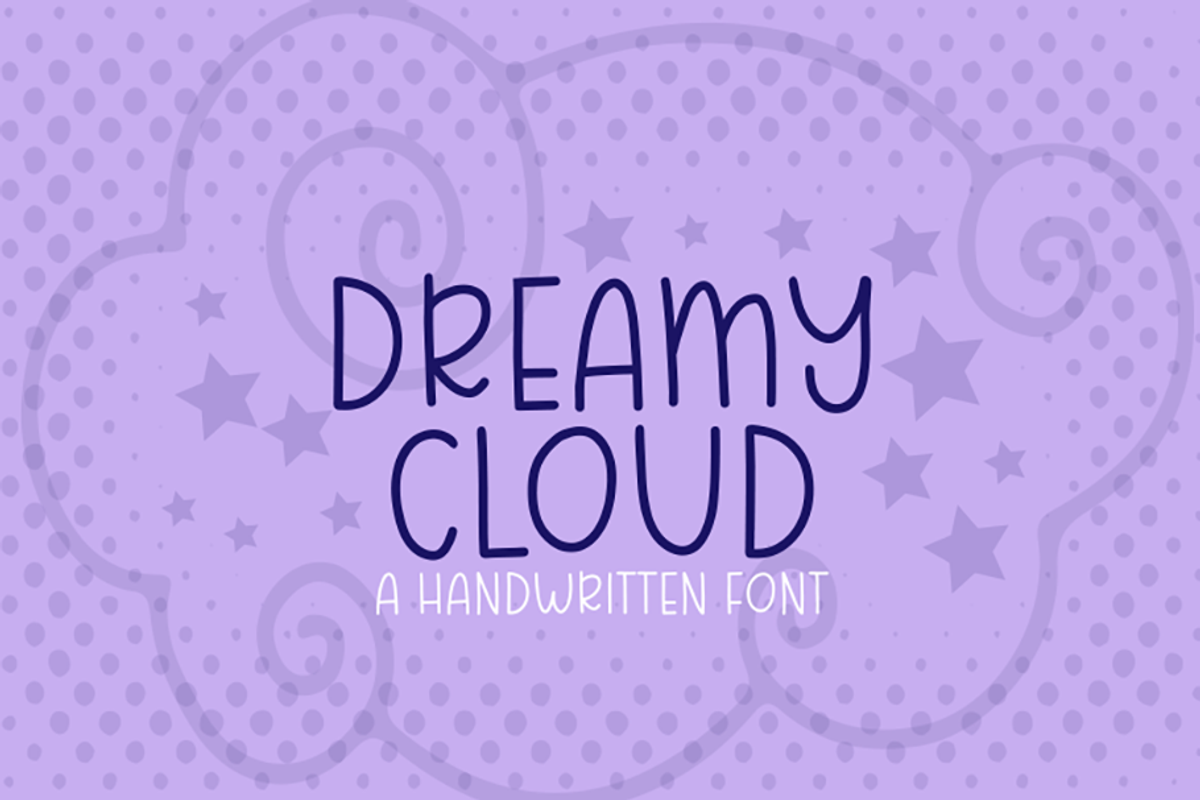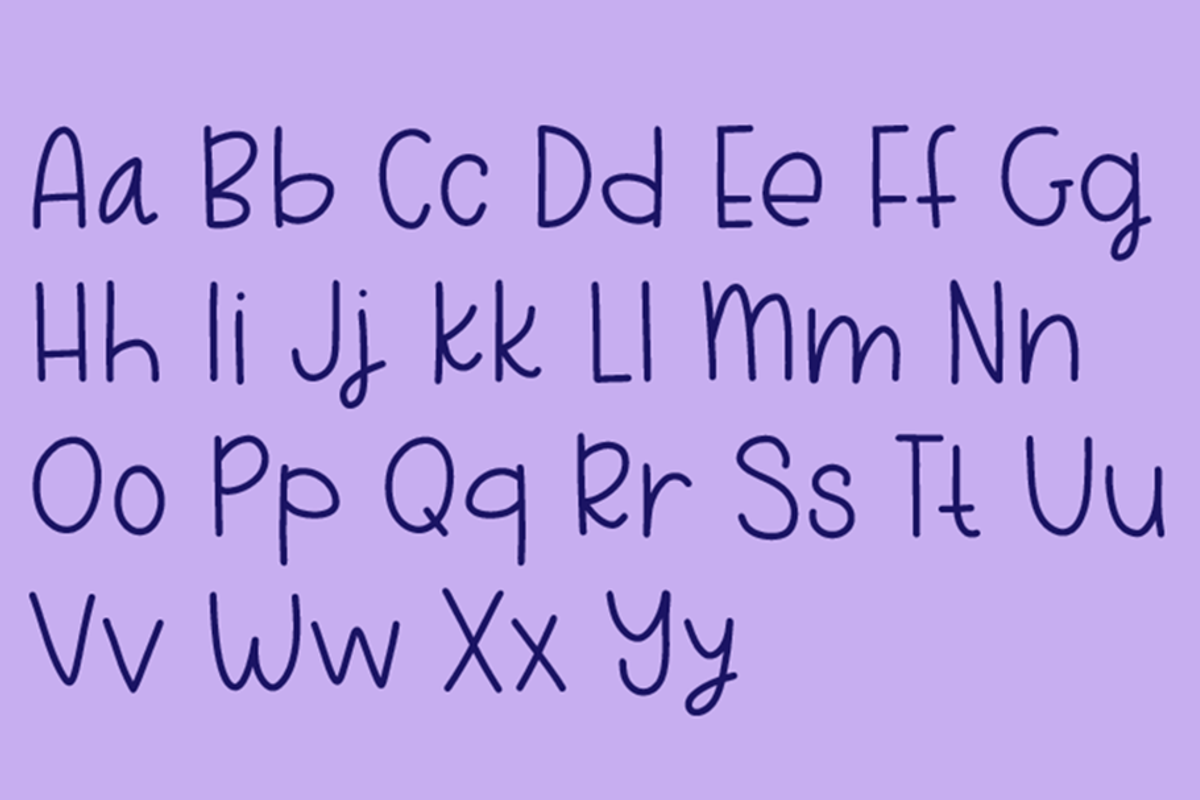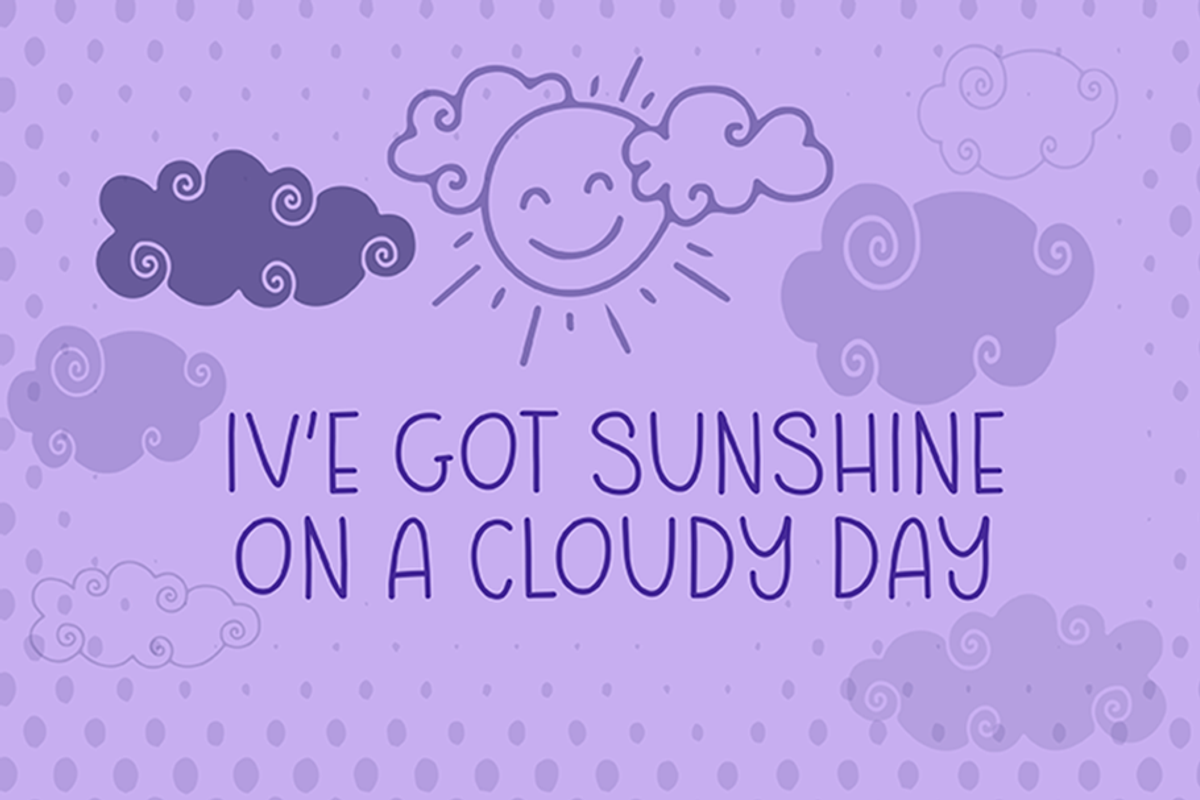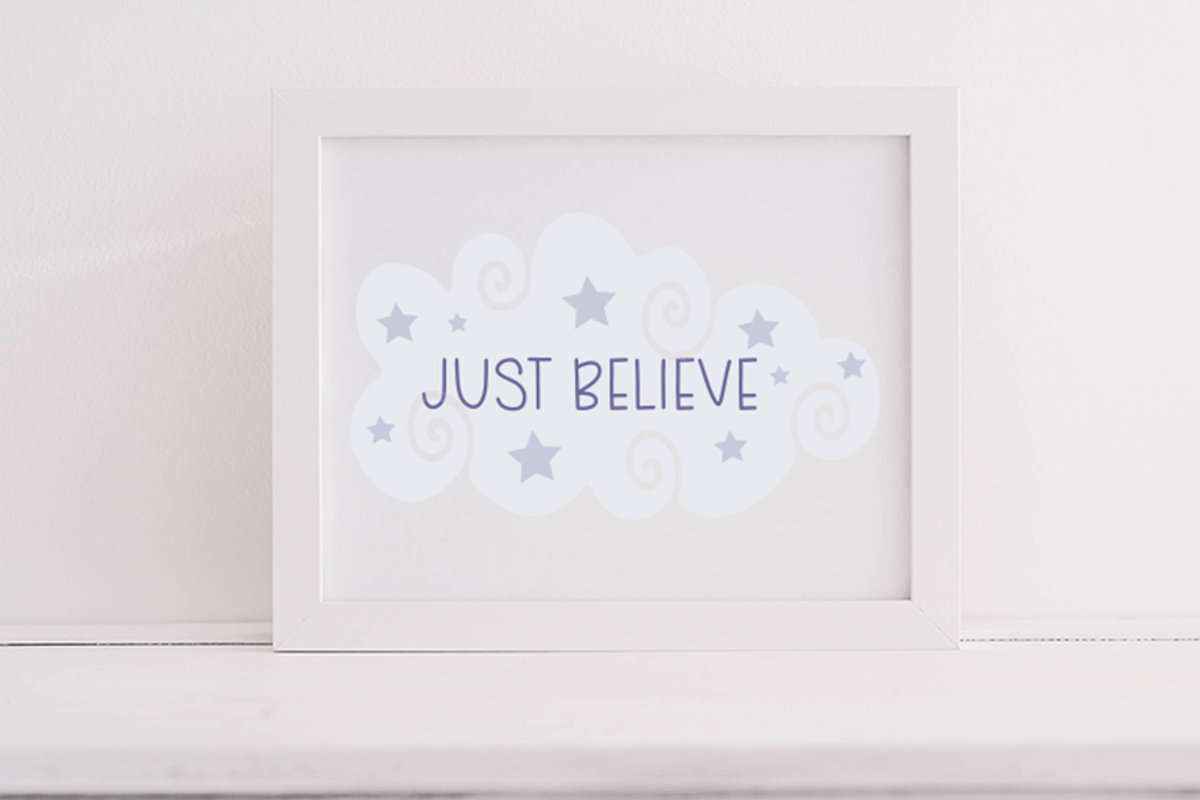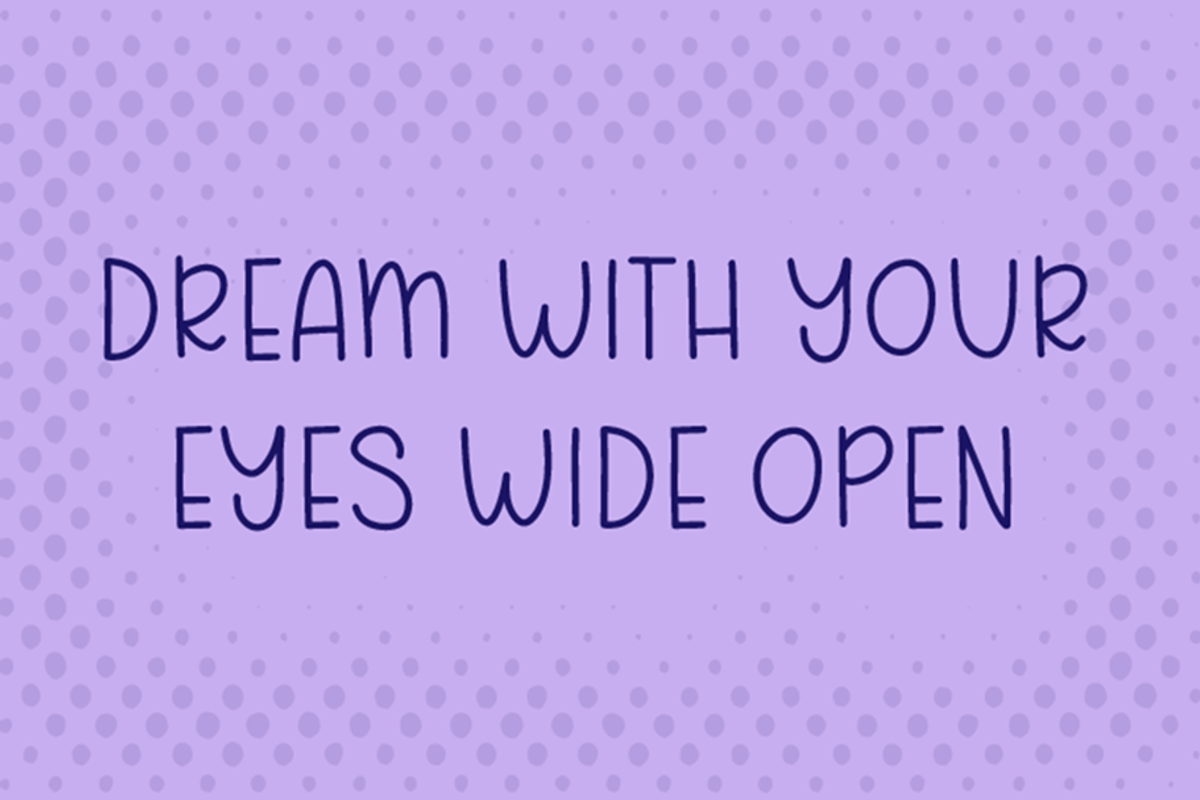
Dreamy Cloud
This font is Quirky and fun. It is sure to bring attention to your graphic design and craft projects. It was lovingly handwritten on the iPad. It can be used to create logos, SVG quotes, book covers, greeting cards, websites, branding and so much more. This font purchase is available in OTF and TTF files